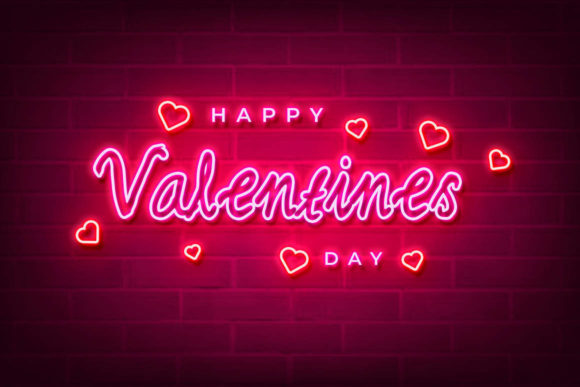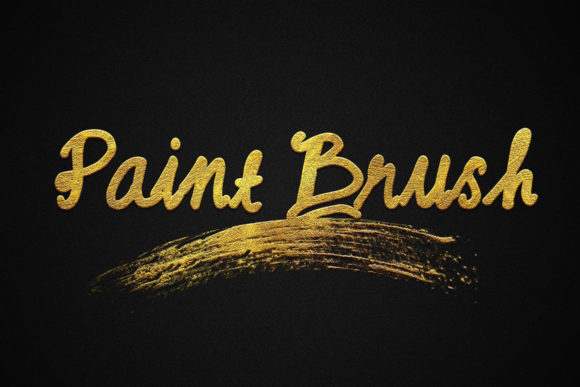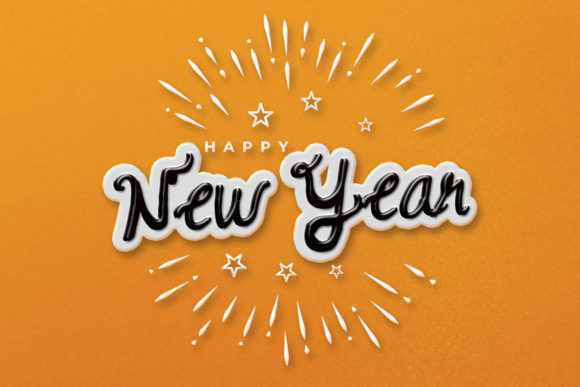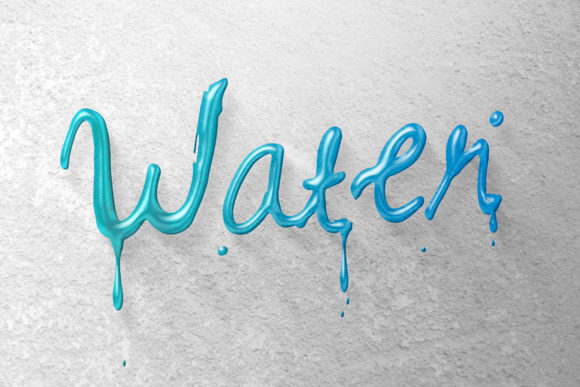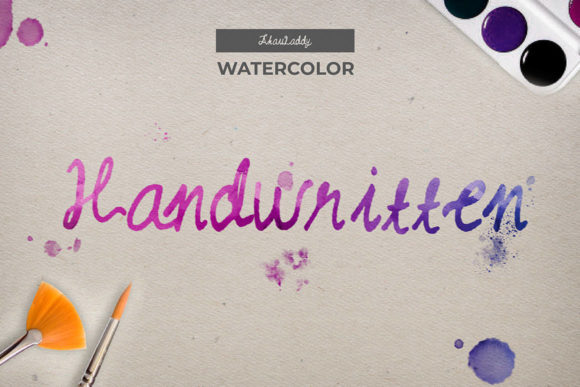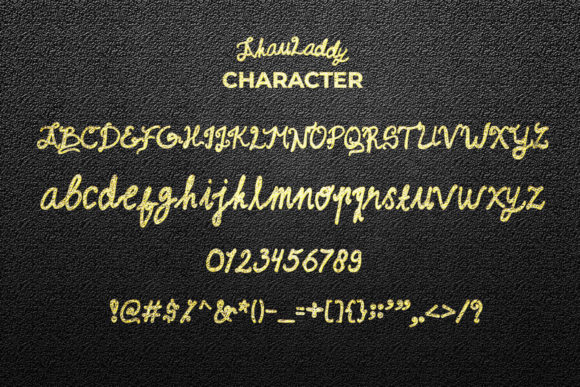
Adding a Touch of Whimsy: The Beauty of Handwritten Typography
Have you ever sat down with a pen and paper, watching as words flow effortlessly onto the page? It’s a moment of pure creativity, where the lines between thought and expression blur. For designers, this feeling is what drives the pursuit of the perfect handwritten font – one that captures the essence of the human touch.
Enter the Akau Laddy Font, a delicate and timeless masterpiece that brings a sense of warmth to any design. Whether it’s a wedding invitation, a heartfelt thank you note, or a business card, this font adds a touch of sophistication and elegance that’s hard to resist. For designers, the Akau Laddy Font is a valuable asset, offering a unique and versatile tool to elevate their creations.
With its versatility and charm, the Akau Laddy Font is a must-have for any design enthusiast looking to add a handwritten touch to their work.
Akau Laddy Font Key Features
- Unique Characteristics: Akau Laddy Font features a unique, hand-drawn style with intricate details and ornaments, making it suitable for creative and artistic projects.
Akau Laddy Font Review
Overall, I’m quite pleased with the Akau Laddy Font. It has a unique, laid-back feel that’s perfect for creating a casual, approachable vibe.
- ✨ Friendly, approachable feel: The font is designed to evoke a sense of relaxation and ease, making it perfect for branding and marketing materials.
- ✨ Wide range of weights: The font comes in a variety of weights, from light to bold, giving designers a lot of flexibility when it comes to typography.
- ✨ Easy to read: The font’s open design and generous letter spacing make it easy to read, even at smaller font sizes.
- ⚠️ Not ideal for small text: While the font is easy to read at larger sizes, it may not be the best choice for small text, as the letter spacing can make it appear cluttered.
The Akau Laddy Font is a solid choice for designers looking to create a relaxed, approachable vibe. While it may have some limitations, its friendly feel and wide range of weights make it a versatile option for a variety of design projects.
Tip: Use Akau Laddy font for headings and titles to add a touch of elegance and sophistication to your design.
Tip: Use Akau Laddy font for typography-heavy designs, such as posters, flyers, and business cards.
Tip: Use Akau Laddy font for presentations, reports, and documents to add a touch of professionalism and sophistication.
Akau Laddy font is ideal for:
- Typography-heavy designs
The Great Vibes Font is a modern script font that conveys a sense of elegance and sophistication. It is suitable for designs that require a touch of luxury, such as wedding invitations, luxury brands, or high-end packaging. In comparison to Akau Laddy Font, Great Vibes Font has a more refined and polished look, making it a better choice for formal designs.
The Dancing Script Font is a whimsical and playful script font that is perfect for designs that require a touch of fun and personality. It is suitable for designs such as food labels, kids’ products, or event invitations. Compared to Akau Laddy Font, Dancing Script Font has a more lively and energetic feel, making it a better choice for designs that require a playful tone.
The Carolyna Pro Font is a elegant and sophisticated script font that is suitable for designs that require a touch of luxury and elegance. It is perfect for designs such as high-end packaging, luxury brands, or wedding invitations. In comparison to Akau Laddy Font, Carolyna Pro Font has a more refined and polished look, making it a better choice for formal designs.
For optimal display, we recommend using a font size of at least 12 points and a resolution of 300 DPI or higher. This will ensure that the font renders clearly and legibly, even at smaller sizes.